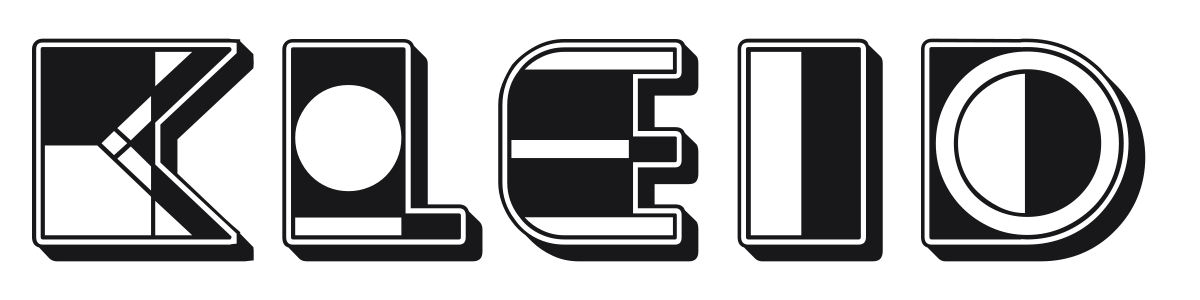
Kleid
Kleid is a bold Art Deco display font where every character sits inside its own geometric frame, like a set of decorative tiles. Heavy inline striping cuts through each letter, producing a dramatic interplay of black fills and white channels. The result reads somewhere between a 1930s nightclub marquee and a vintage label.